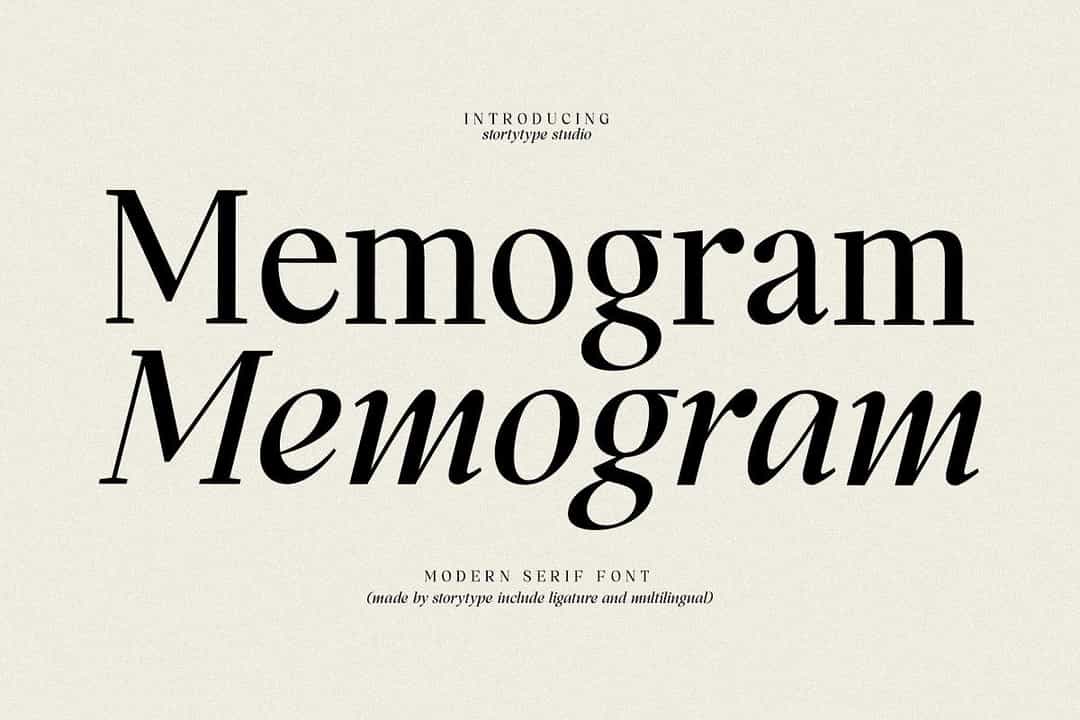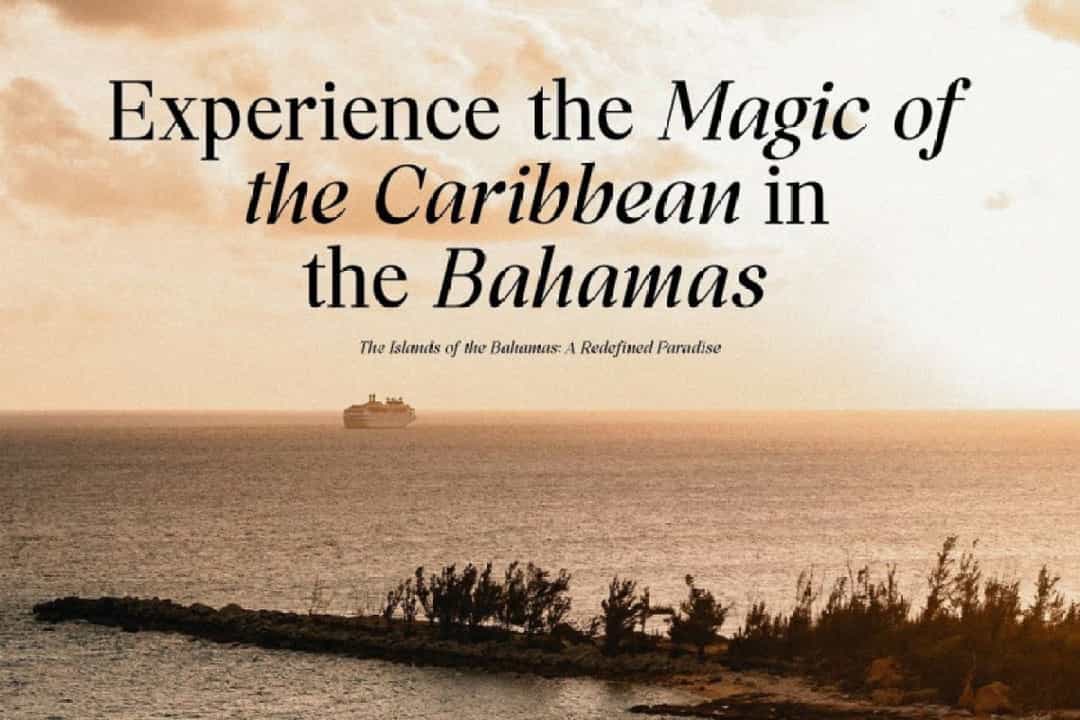
Memogram Font developed by Storytype is a modern and timeless serif typeface, notable for its distinct style and contemporary appearance. Perfect for creating elegant logos, movie or book covers, fashion label clothing items, magazines articles or lettering projects as well as quotes – Memogram font is truly versatile!